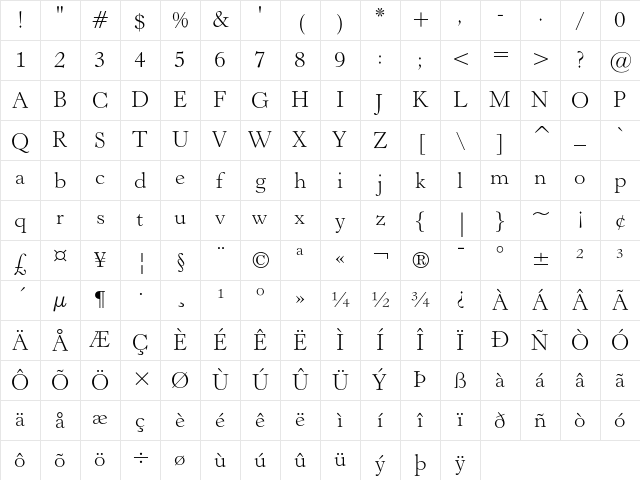
Revival 555 Light
Design Context for Revival 555
Revival 555 is a composed and adaptable typeface that performs quietly and consistently across a wide range of design contexts. Its slender proportions lend an understated elegance to any composition.
Pro Tip: Use Revival 555 in both headline and body roles to test its range before committing to a single application.